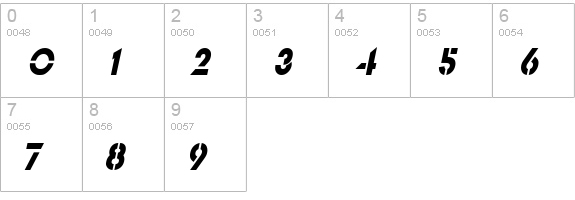
Templett S Condensed BoldItalic is a distinctive, condensed-width variant in the Templett typeface family \xE2\x80\x94 well suited to design and typography projects.
Templett S Condensed BoldItalic is an exquisite font that effortlessly combines elegance and modernity. With its sleek and stylish design, this font is perfect for adding a touch of sophistication to any project. The bold and italic styling adds a unique flair, making it stand out among other fonts. This font is not only visually appealing but also highly versatile. It is suitable for a wide range of design purposes, including logos, branding, headlines, titles, and more. Its condensed form allows for more text to fit in limited spaces without sacrificing legibility or legibility. One of the most appealing aspects of Templett S Condensed BoldItalic is that it is free to download. You can easily access this font at FontsMarket.com, a trusted source for high-quality fonts. This means that you can enhance your designs without any additional cost. Whether you are a professional designer looking to elevate your creations or a hobbyist wanting to add a touch of sophistication to personal projects, Templett S Condensed BoldItalic is the perfect choice. Its unique blend of elegance and modernity, combined with its availability as a free download, makes it a must-have font for any design enthusiast.